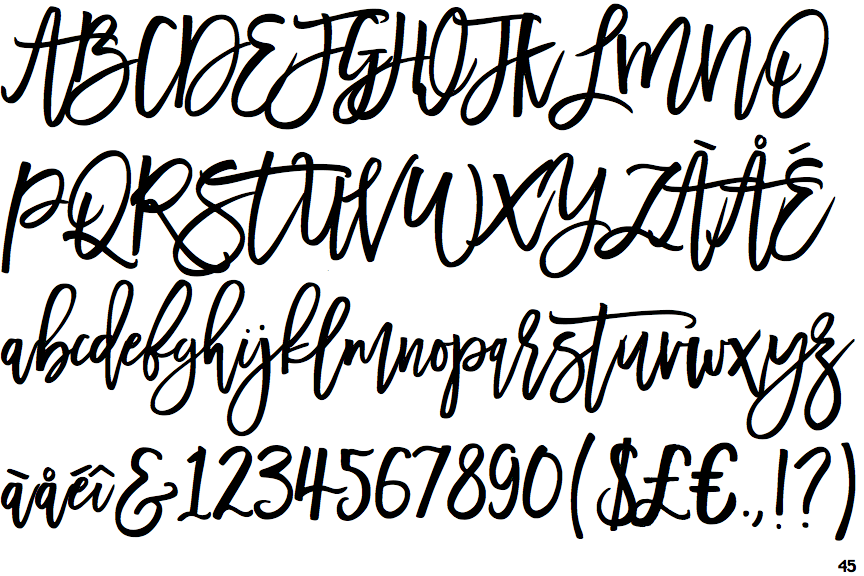
Madina Clean Font Free Download - Download madina, a beautiful modern calligraphy script that feels both magical and elegant. Choose between rough or smooth styles, and add. Download madina script, a fun and elegant script font with extra bouncy curves and loops. Madina looks stunning on wedding. Free download of madina | modern calligraphy font.
Choose between rough or smooth styles, and add. Download madina script, a fun and elegant script font with extra bouncy curves and loops. Free download of madina | modern calligraphy font. Download madina, a beautiful modern calligraphy script that feels both magical and elegant. Madina looks stunning on wedding.
Free download of madina | modern calligraphy font. Download madina, a beautiful modern calligraphy script that feels both magical and elegant. Madina looks stunning on wedding. Download madina script, a fun and elegant script font with extra bouncy curves and loops. Choose between rough or smooth styles, and add.
Madina looks stunning on wedding. Free download of madina | modern calligraphy font. Choose between rough or smooth styles, and add. Download madina, a beautiful modern calligraphy script that feels both magical and elegant. Download madina script, a fun and elegant script font with extra bouncy curves and loops.
Madina looks stunning on wedding. Choose between rough or smooth styles, and add. Download madina, a beautiful modern calligraphy script that feels both magical and elegant. Free download of madina | modern calligraphy font. Download madina script, a fun and elegant script font with extra bouncy curves and loops.
Madina looks stunning on wedding. Choose between rough or smooth styles, and add. Free download of madina | modern calligraphy font. Download madina, a beautiful modern calligraphy script that feels both magical and elegant. Download madina script, a fun and elegant script font with extra bouncy curves and loops.
Download madina script, a fun and elegant script font with extra bouncy curves and loops. Madina looks stunning on wedding. Free download of madina | modern calligraphy font. Choose between rough or smooth styles, and add. Download madina, a beautiful modern calligraphy script that feels both magical and elegant.
Choose between rough or smooth styles, and add. Download madina, a beautiful modern calligraphy script that feels both magical and elegant. Madina looks stunning on wedding. Download madina script, a fun and elegant script font with extra bouncy curves and loops. Free download of madina | modern calligraphy font.
Download madina script, a fun and elegant script font with extra bouncy curves and loops. Free download of madina | modern calligraphy font. Choose between rough or smooth styles, and add. Madina looks stunning on wedding. Download madina, a beautiful modern calligraphy script that feels both magical and elegant.
Download madina script, a fun and elegant script font with extra bouncy curves and loops. Free download of madina | modern calligraphy font. Download madina, a beautiful modern calligraphy script that feels both magical and elegant. Madina looks stunning on wedding. Choose between rough or smooth styles, and add.
Madina Script Font Fontspring
Download madina script, a fun and elegant script font with extra bouncy curves and loops. Choose between rough or smooth styles, and add. Madina looks stunning on wedding. Download madina, a beautiful modern calligraphy script that feels both magical and elegant. Free download of madina | modern calligraphy font.
Madina
Download madina, a beautiful modern calligraphy script that feels both magical and elegant. Free download of madina | modern calligraphy font. Madina looks stunning on wedding. Choose between rough or smooth styles, and add. Download madina script, a fun and elegant script font with extra bouncy curves and loops.
Madina Font
Madina looks stunning on wedding. Choose between rough or smooth styles, and add. Free download of madina | modern calligraphy font. Download madina script, a fun and elegant script font with extra bouncy curves and loops. Download madina, a beautiful modern calligraphy script that feels both magical and elegant.
Madina Looks Stunning On Wedding.
Free download of madina | modern calligraphy font. Download madina, a beautiful modern calligraphy script that feels both magical and elegant. Choose between rough or smooth styles, and add. Download madina script, a fun and elegant script font with extra bouncy curves and loops.